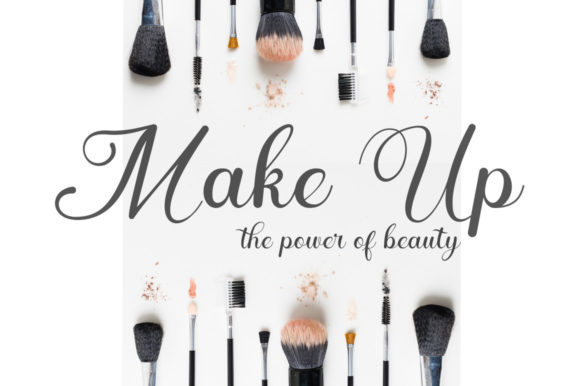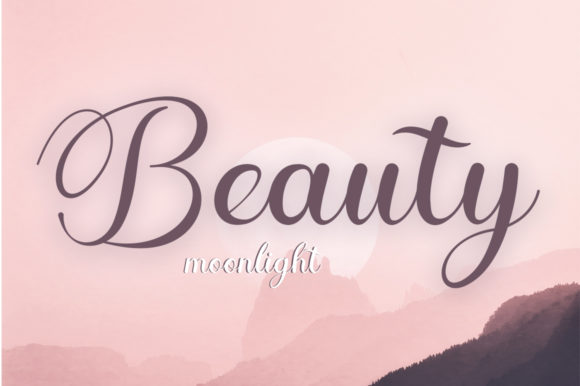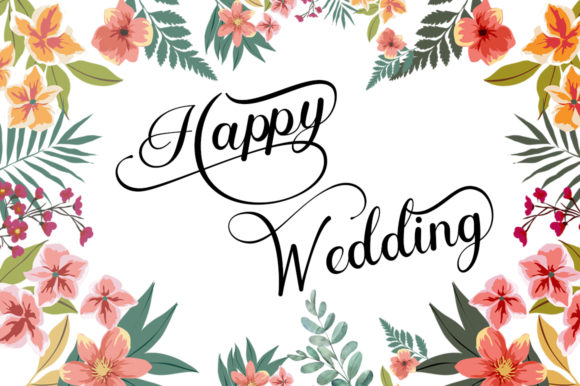
Introduction to Pleine Lune Font
Pleine Lune is an elegant and romantic handwritten font perfect for logos, brochures, business cards, online stores, t-shirt designs, mockups, invitation cards, wedding cards, flyers, posters, and many more.
Key Features of Pleine Lune Font
Why Choose Pleine Lune Font?
Pleine Lune Font offers exceptional quality and versatility, making it a valuable addition to your design toolkit. Whether you’re creating for personal projects or commercial use, Pleine Lune Font delivers professional results.